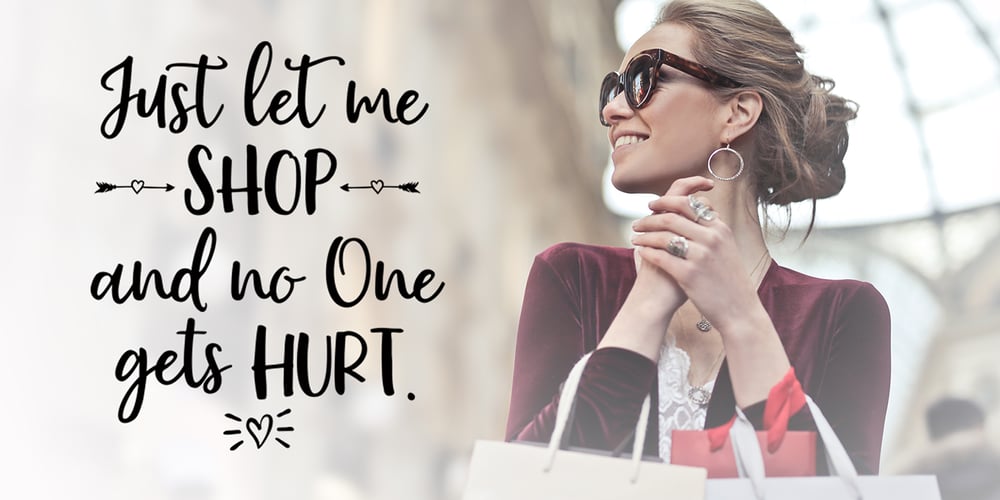
Mustafa Script Font Family was designed by Fajar Gunawan and published by Fargun Studio. Mustafa Script contains 4 styles and family package options. Mustafa Script is handwritten stylish copperplate calligraphy fonts, combines from copperplate to contemporary typeface with a dancing baseline, classic and elegant touch. Can be used for various purposes. such as headings, signature, logos, wedding invitation, t-shirt, letterhead, signage, lable, news, posters, badges etc.